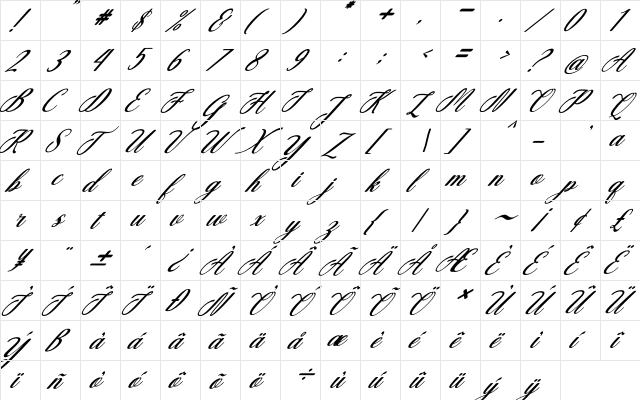
Christmas Glooves Italic Regular
Design Context for Christmas Glooves Italic Typeface
Christmas Glooves Italic is a composed and adaptable typeface that performs quietly and consistently across a wide range of design contexts. Its italic angle brings a sense of urgency and motion to the letterforms.
Pro Tip: Try Christmas Glooves Italic for annotation and caption copy alongside an upright companion — the contrast in angle creates a dynamic but ordered typographic system.